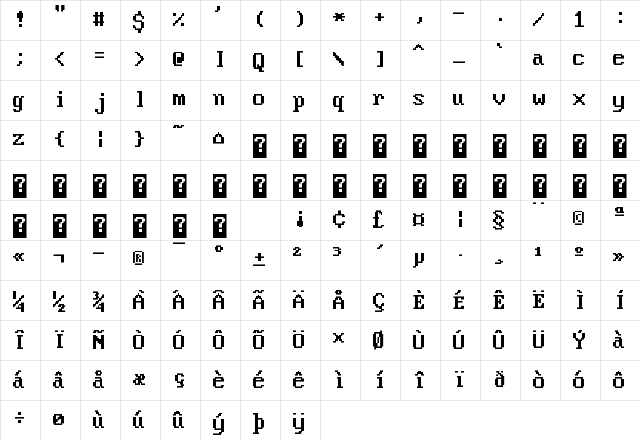
PxPlus IBM VGA9 Regular Free Font
PxPlus IBM VGA9 Regular
Foundry: VileR
Designer: VileR
Design Context for PxPlus IBM VGA9
PxPlus IBM VGA9 is a composed and adaptable typeface that performs quietly and consistently across a wide range of design contexts.